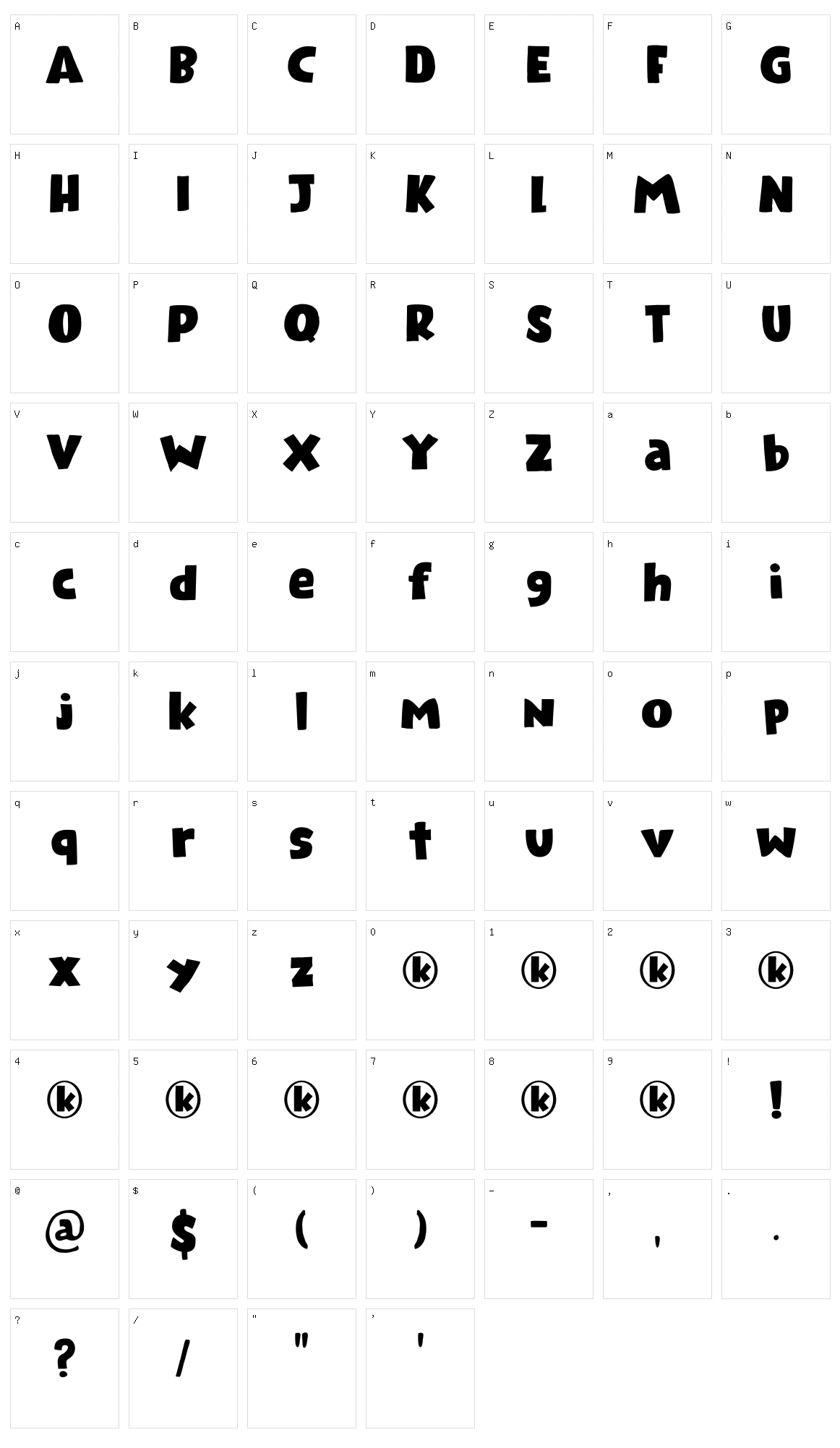
The free font Kandij is carefully designed by Hanoded, showcasing a thoughtful balance of creativity and usability and falls under the Cartoon font style. When you download the ZIP file, it contains only 123.04 KB of font files, making it lightweight and quick to download. Please review the license details below to understand permitted usage and distribution rights. If license information is not available, we recommend using this font for personal projects only or contacting the author directly for commercial usage permissions.